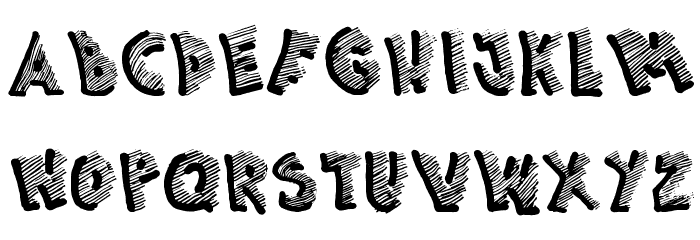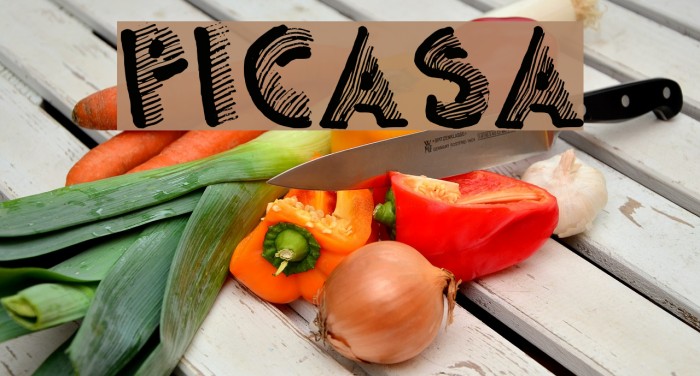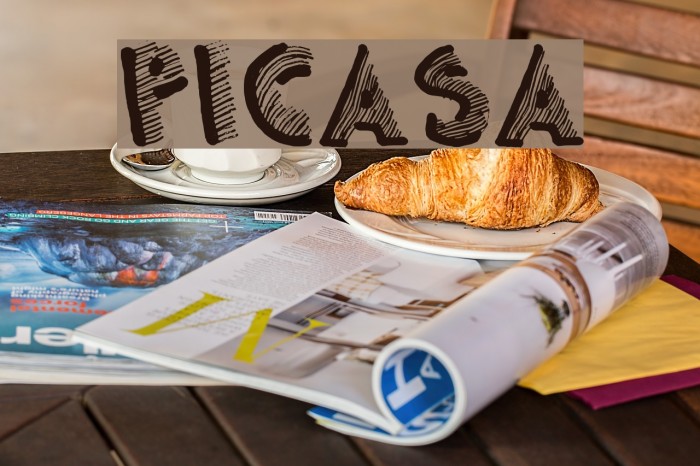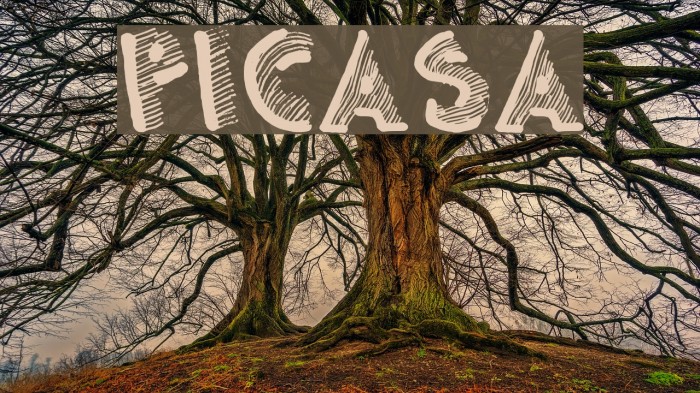
Picasa Font
This font features a bold, playful design with a distinct hand-drawn appearance. Each letter is filled with diagonal lines that create a dynamic, textured look. The characters are slightly slanted, adding to the casual and informal feel. The strokes are thick and consistent, providing a strong visual impact. The font lacks lowercase letters and numbers, focusing solely on uppercase letters. The unique style makes it stand out, ideal for creative and artistic projects.
A bold, hand-drawn font with textured diagonal lines and a playful style.
- Proposed Projects: Ideal for posters, children's book covers, playful branding, and artistic designs.
- Overall Style: Playful, Artistic